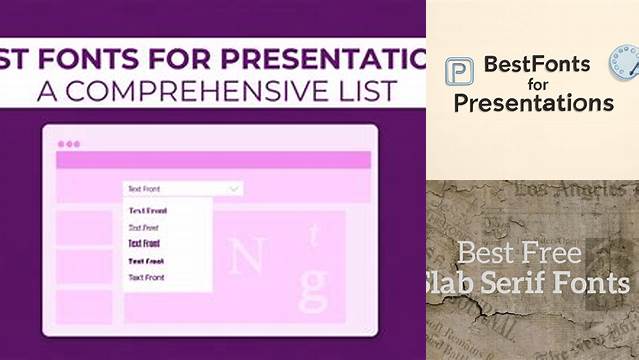
Best Fonts For Presentations: Expertly Chosen & Explained
Presentations, guys, are a crucial part of communication in various settings, whether it's a business meeting, a school project, or a conference. A well-designed presentation can capture your audience's attention, convey your message effectively, and leave a lasting impression. One of the most critical, yet often overlooked, elements of a great presentation is the choice of fonts. Selecting the right fonts can significantly enhance readability, visual appeal, and overall impact. In this comprehensive guide, we'll explore the best fonts for presentations, offering insights and recommendations to help you create stunning and engaging slideshows. The typography you choose sets the tone and influences how your audience perceives your content, ya know? A clear, legible font ensures that your message is easily understood, while an aesthetically pleasing font can add a touch of professionalism and creativity. So, let's dive in and discover the best fonts that will make your presentations stand out!
Understanding the Importance of Font Choice
Choosing the right fonts for presentations is super important. The fonts you use play a huge role in how your audience understands and engages with your content. A font that's easy to read ensures everyone can follow along without straining their eyes, while a visually appealing font can keep them interested and focused. Imagine using a font that's too small or overly decorative – it could make your presentation a real struggle to get through. On the flip side, a well-chosen font can make your slides look polished and professional, helping you to convey your message effectively and leave a lasting impression.
Readability is key in presentations. Your audience needs to be able to read your slides quickly and easily, whether they're sitting in the front row or the back. That means avoiding fonts that are too thin, too stylized, or too small. Instead, opt for fonts that are clear and legible at a variety of sizes. Visual appeal also matters because a font that looks good can make your presentation more engaging. Think about it: would you rather look at slides with a boring, generic font or slides with a font that's both readable and stylish? The right font can add personality and flair to your presentation, helping you to capture and hold your audience's attention. And let's not forget about consistency. Using the same fonts throughout your presentation creates a cohesive and professional look. It shows that you've put thought and effort into your design, which can boost your credibility and make your message more impactful. So, take the time to choose your fonts wisely – it's an investment that can pay off big time in terms of audience engagement and comprehension.
Best Sans-Serif Fonts for Presentations
Sans-serif fonts are a popular choice for presentations because they're clean, modern, and easy to read on screens. These fonts lack the small decorative strokes (serifs) that are found in traditional typefaces, making them appear more streamlined and less cluttered. When it comes to presenting information, clarity is key, and sans-serif fonts deliver just that. They're particularly effective for headings, body text, and bullet points, ensuring that your message comes across loud and clear. Some top sans-serif fonts include Arial, a widely used font known for its simplicity and legibility; Helvetica, a classic choice that exudes professionalism and clarity; and Open Sans, a versatile font designed for readability across various devices and screen resolutions. These fonts are great because they work well in different sizes and formats, making them ideal for presentations where you need to maintain consistency and readability. Using sans-serif fonts can significantly enhance the overall visual appeal of your slides, ensuring that your audience stays engaged and understands your content without any strain. For instance, a presentation about technology or innovation might benefit from the sleek and modern look of a sans-serif font, reinforcing the cutting-edge nature of the topic. By choosing the right sans-serif font, you can create a polished and professional presentation that leaves a lasting impression.
Best Serif Fonts for Presentations
Serif fonts, characterized by the small decorative strokes at the end of each letter, bring a touch of tradition and elegance to presentations. While sans-serif fonts are often favored for their modern simplicity, serif fonts can be equally effective, especially when used thoughtfully. These fonts evoke a sense of authority and sophistication, making them suitable for presentations that require a more formal or classic feel. Among the top serif fonts for presentations are Times New Roman, a widely recognized font that conveys a sense of reliability; Georgia, designed for on-screen readability with its clear and well-defined letterforms; and Merriweather, a font specifically created for comfortable reading on screens, even at smaller sizes. The key to using serif fonts effectively in presentations is to ensure they remain legible and don't overwhelm the audience. It's generally best to reserve serif fonts for headings or shorter blocks of text, pairing them with a complementary sans-serif font for the body text to maintain readability. For example, a presentation on literature, history, or art might benefit from the refined appearance of a serif font, adding a layer of sophistication that enhances the overall message. When choosing serif fonts, consider the context of your presentation and the tone you want to convey. A well-selected serif font can elevate your presentation, adding a touch of class and helping you connect with your audience on a deeper level.
Font Pairing Tips
When designing presentations, y'all, pairing fonts effectively can significantly enhance the visual harmony and readability of your slides. Combining different fonts can create a balanced and engaging look, but it's essential to do it right. Start by choosing a primary font for your headings and a secondary font for your body text. A classic approach is to pair a sans-serif font with a serif font. For instance, using Helvetica for headings and Georgia for body text creates a clean and professional aesthetic. Alternatively, you can pair two different sans-serif fonts or two different serif fonts, but make sure they have enough contrast to be easily distinguishable. When selecting font pairings, consider the overall tone and style of your presentation. A modern presentation might benefit from pairing Open Sans with Roboto, while a more traditional presentation could pair Times New Roman with Arial. Ensure that your chosen fonts complement each other in terms of weight, size, and spacing. Avoid using too many different fonts in a single presentation, as this can create a cluttered and confusing look. Stick to a maximum of two or three fonts to maintain consistency and visual appeal. Always test your font pairings on different devices and screen sizes to ensure they remain legible and visually appealing. By following these tips, you can create visually stunning presentations that effectively convey your message and captivate your audience.
Font Size and Spacing
Choosing the right font size and spacing is just as crucial as selecting the fonts themselves. When it comes to font size, readability is paramount. Your audience needs to be able to read your slides comfortably, whether they're sitting in the front row or the back. A good rule of thumb is to use a minimum font size of 24 points for body text and 36 points for headings. However, this can vary depending on the specific font and the size of the presentation screen. Always test your font sizes in the actual presentation environment to ensure they're legible from all viewing distances. Proper spacing, both between lines and between letters, can also significantly impact readability. Use adequate line spacing (also known as leading) to prevent lines of text from overlapping or appearing too crowded. A line spacing of 1.2 to 1.5 times the font size is generally recommended. Adjust letter spacing (also known as tracking) to improve the overall appearance of your text. Increasing letter spacing can make text appear more open and airy, while decreasing it can make text appear more dense and compact. Be careful not to overdo it, as excessive letter spacing can make text difficult to read. Consistent use of font sizes and spacing throughout your presentation will create a polished and professional look. Use the same font sizes for headings and body text on all slides, and maintain consistent line and letter spacing. By paying attention to font size and spacing, you can ensure that your presentation is both visually appealing and easy to read, helping you to effectively communicate your message to your audience.
Tools and Resources for Font Selection
Finding the perfect fonts for your presentations can be a breeze with the right tools and resources. Several online platforms offer extensive font libraries, font pairing suggestions, and font testing tools to help you make informed decisions. Google Fonts is a fantastic resource, providing a wide variety of free, open-source fonts that are easy to download and use in your presentations. The platform also offers font pairing recommendations and allows you to test different fonts directly in your browser. Adobe Fonts (formerly Typekit) is another excellent option, offering a vast collection of high-quality fonts that are included with an Adobe Creative Cloud subscription. The platform provides advanced font filtering options and seamless integration with Adobe software. For font pairing inspiration, check out websites like FontPair and Canva's Font Combinations tool. These resources offer curated font pairings that you can use as a starting point for your own presentations. They also provide valuable insights into the principles of font pairing, helping you understand why certain fonts work well together. When testing fonts, be sure to view them on different devices and screen sizes to ensure they remain legible and visually appealing. Use online font testing tools or simply create a test slide in your presentation software and view it on various screens. By leveraging these tools and resources, you can streamline the font selection process and create visually stunning presentations that effectively communicate your message.
In conclusion, choosing the best fonts for your presentations is a crucial step in creating engaging and effective slideshows. The right fonts can enhance readability, visual appeal, and overall impact, helping you to capture your audience's attention and convey your message clearly. By understanding the importance of font choice, exploring different font categories (such as sans-serif and serif fonts), and following font pairing tips, you can create visually harmonious and professional presentations. Remember to pay attention to font size and spacing to ensure readability from all viewing distances. Leverage the various tools and resources available online to streamline the font selection process and test your fonts on different devices and screen sizes. With careful consideration and attention to detail, you can elevate your presentations to the next level, leaving a lasting impression on your audience. So, go get 'em, and make your presentations shine with the perfect fonts!